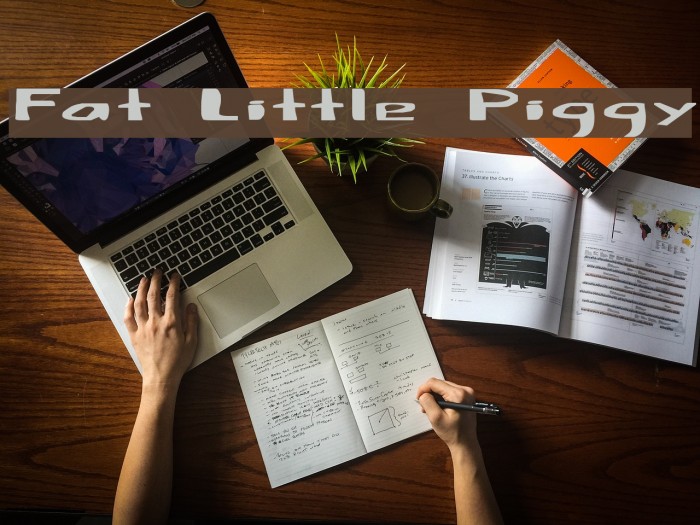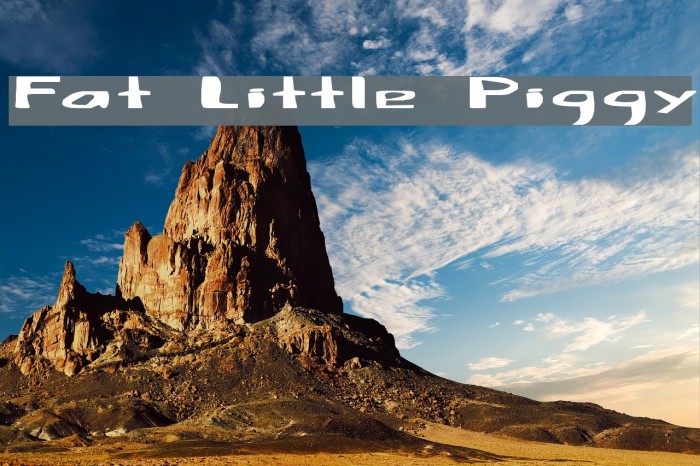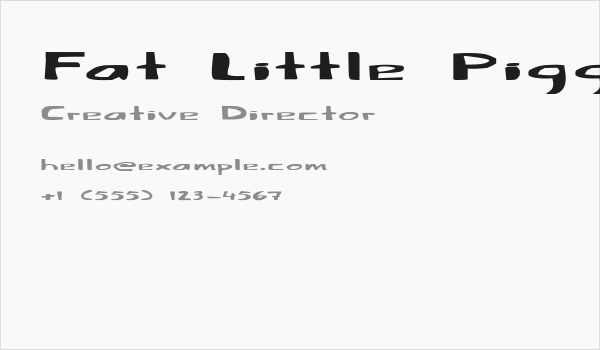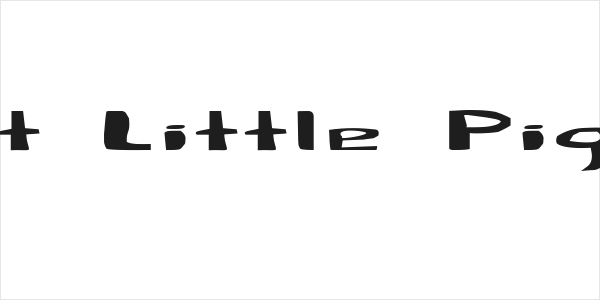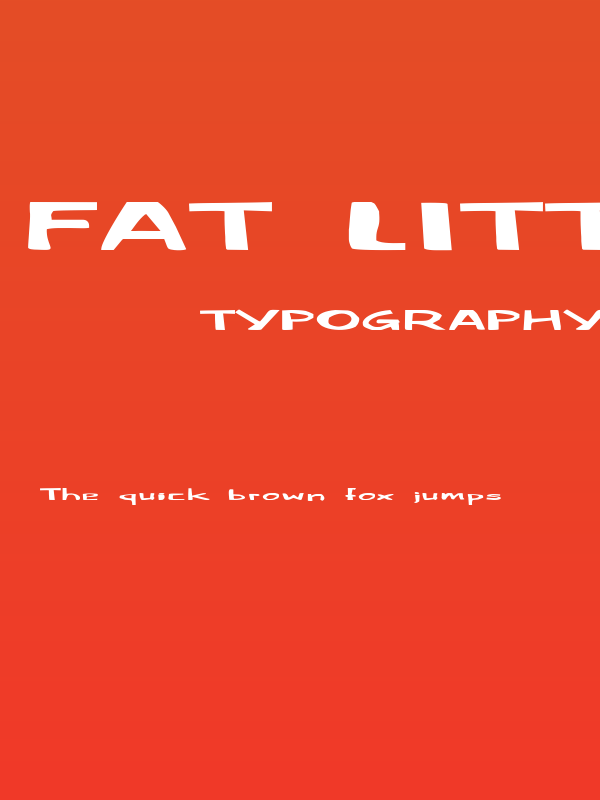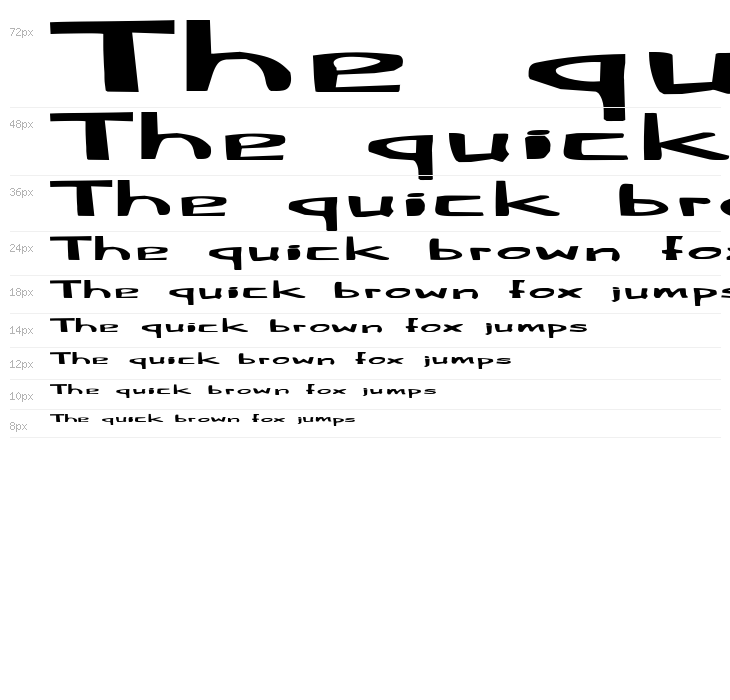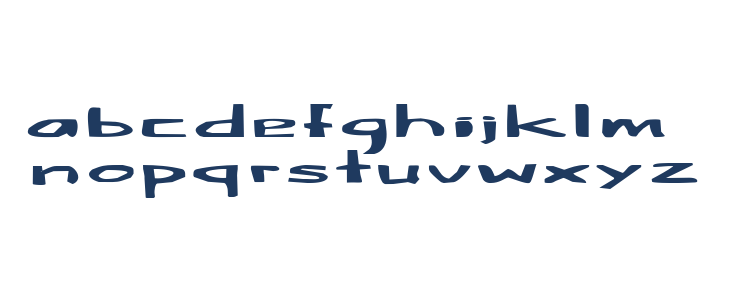
Fat Little Piggy Font
Fat Little Piggy Description
This playful and whimsical font features bold, rounded characters with a slightly uneven baseline, giving it a hand-drawn, casual feel. The strokes are thick and consistent, creating a sense of friendliness and approachability. The letters have a slight tilt, adding to the dynamic and lively appearance. The font includes both uppercase and lowercase letters, numerals, and a variety of special characters, making it versatile for different design needs. Its unique style is perfect for projects that require a fun and informal touch.
| Proposed Projects | Ideal for children's books, playful branding, greeting cards, and casual event invitations. |